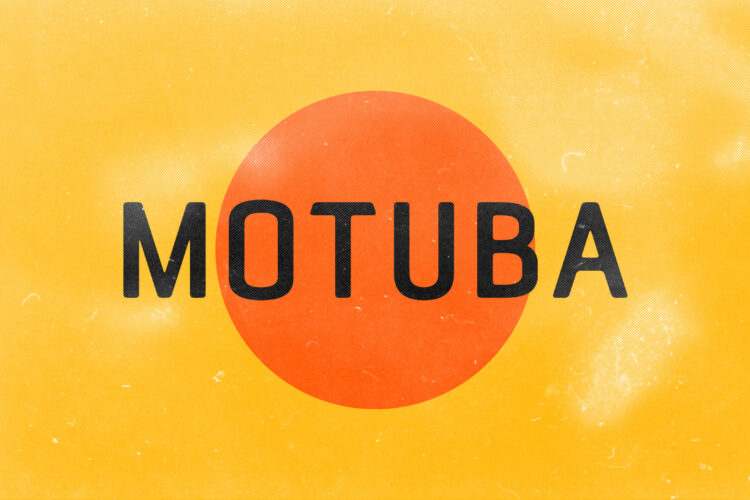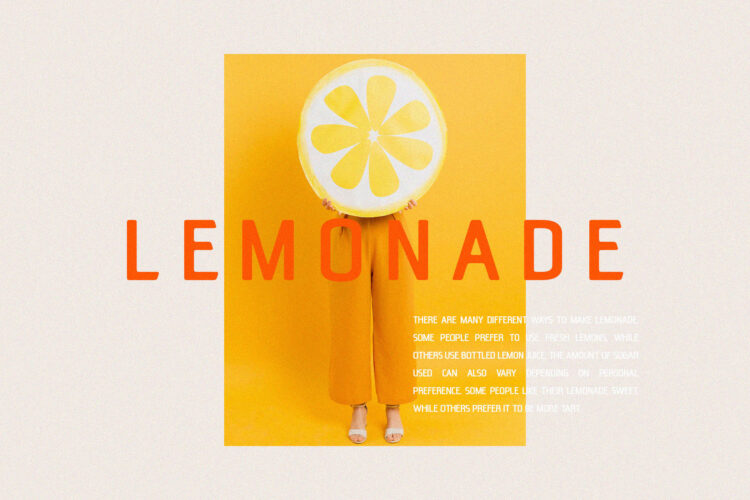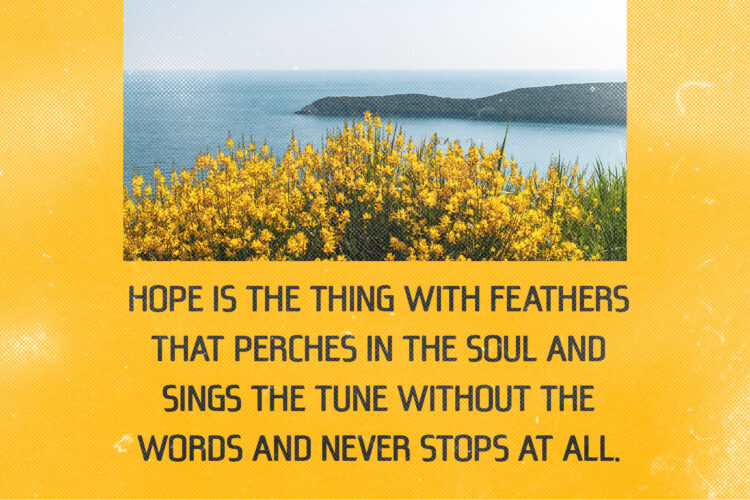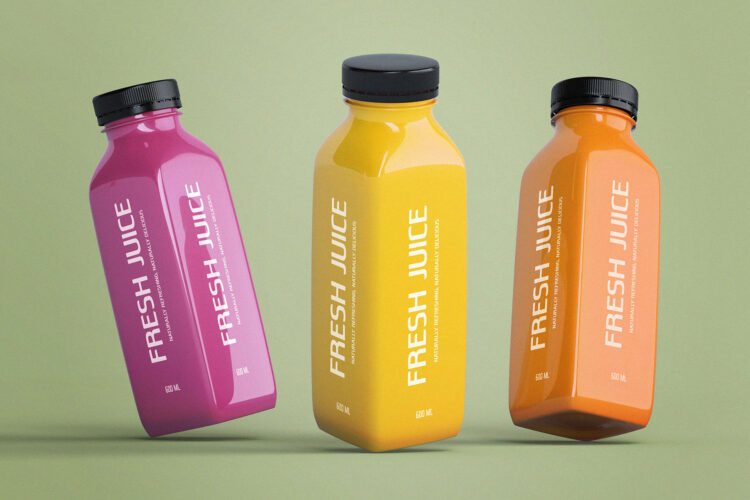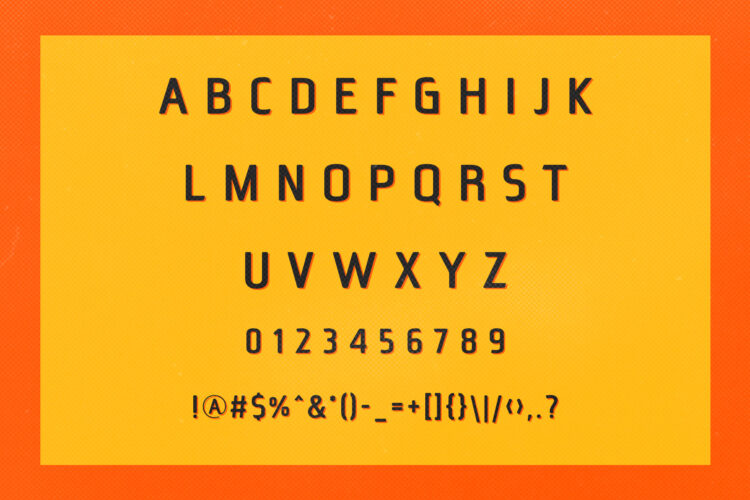
Introducing Motuba Retro Sans Serif Font.
Motuba is a modern and nostalgic sans serif font, best used as a display for headings, logos, branding, magazines, product packaging and invitations. Motuba come with clean lines and smooth curves give any project an extra touch of class.